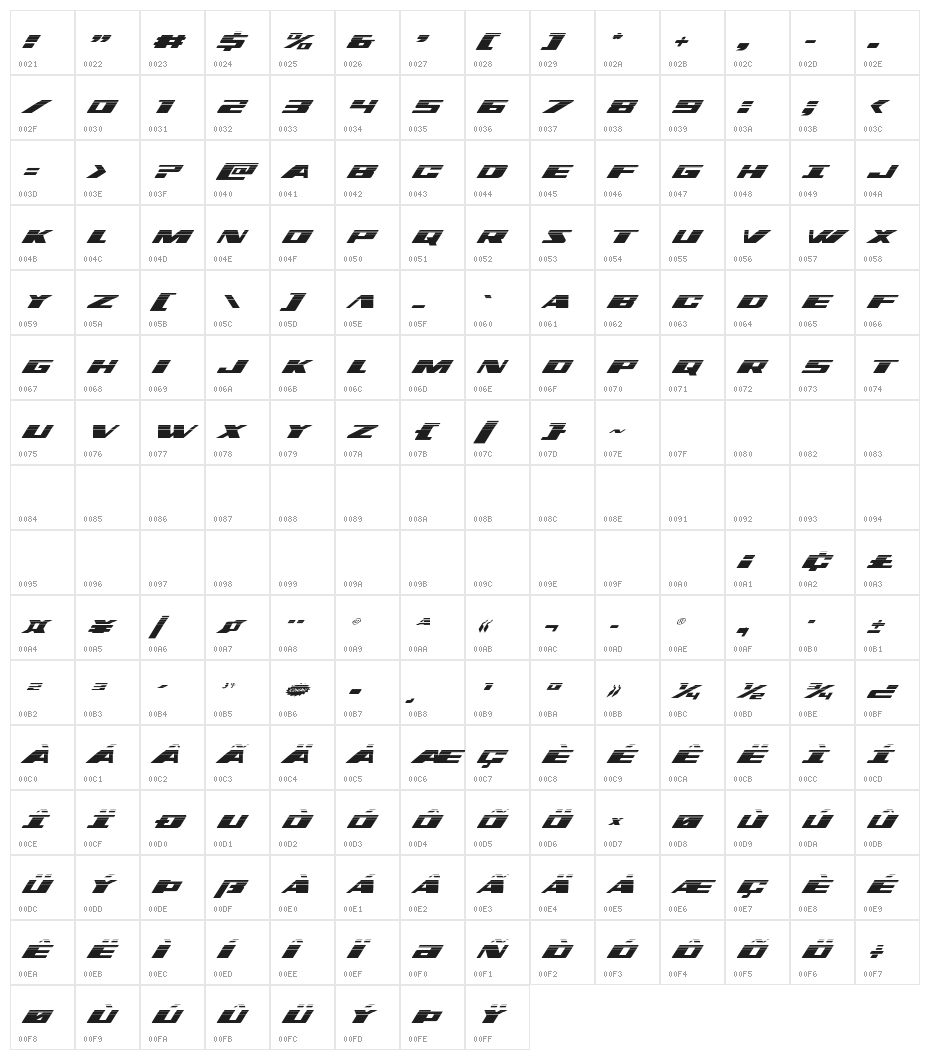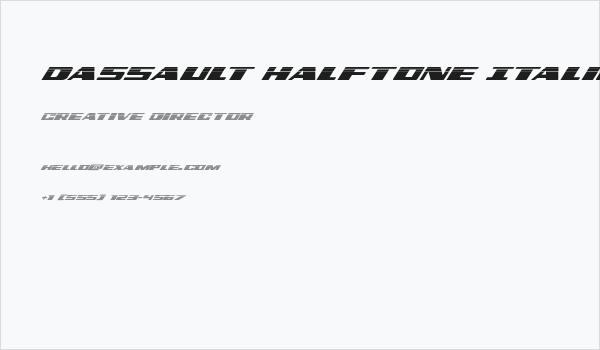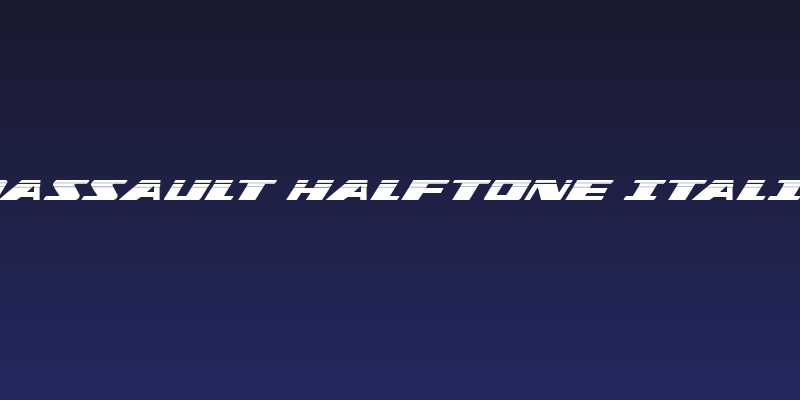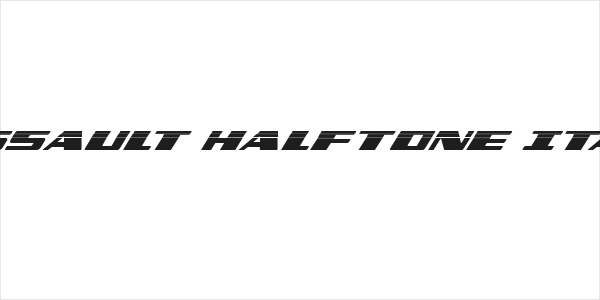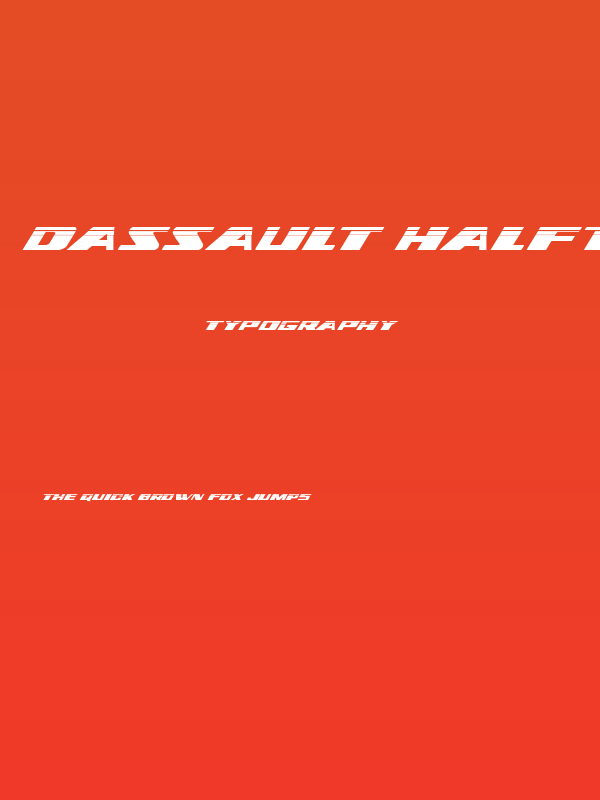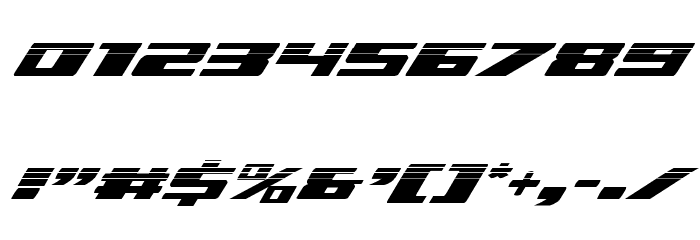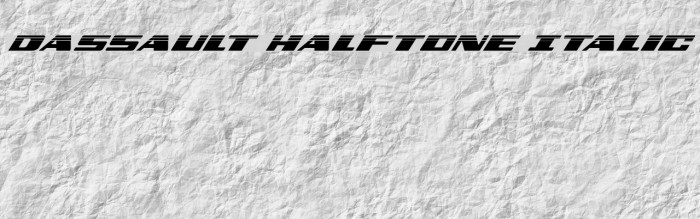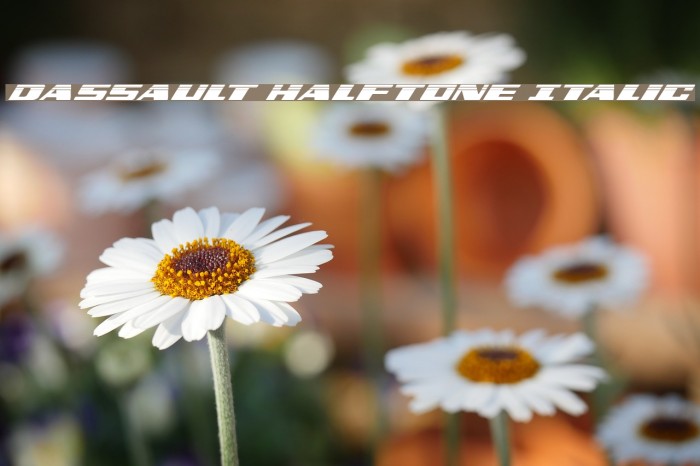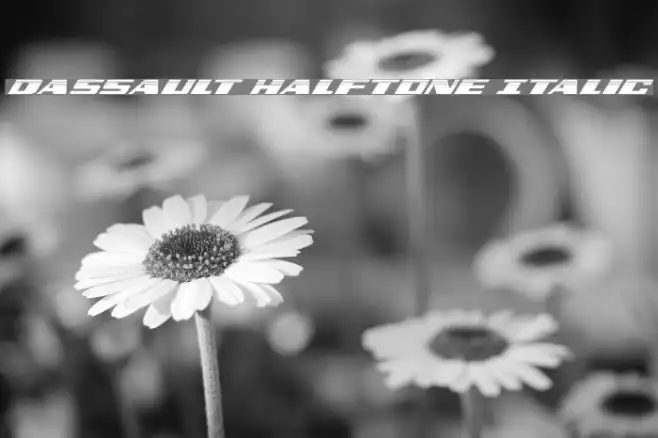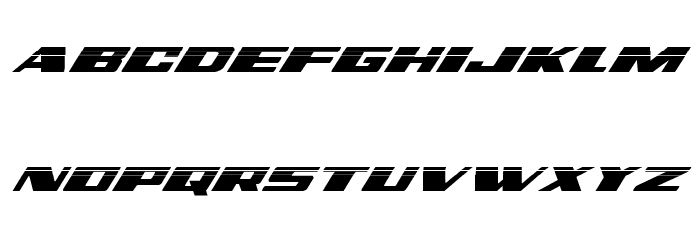
Dassault Halftone Italic Font
Dassault Halftone Italic Description
This font features a bold, italicized style with a futuristic and dynamic appearance. The characters are designed with sharp angles and a slanted orientation, giving a sense of motion and speed. The uppercase letters are prominent and wide, while the lowercase letters maintain the same angular design, ensuring consistency across the typeface. The numbers and special characters follow the same stylistic cues, making them suitable for various applications. The overall design is sleek and modern, with a high contrast in stroke thickness that enhances its boldness.
| Proposed Projects | Ideal for projects requiring a modern and energetic feel, such as sports branding, automotive designs, technology logos, and dynamic posters. |